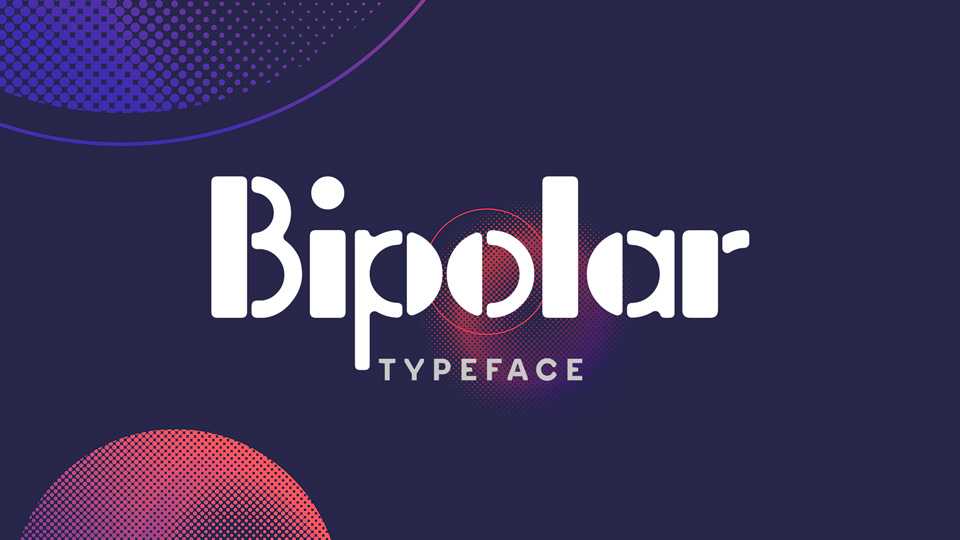
Download Bipolar is a stencil geometric typeface with a contrasting character style. Bipolar font perfectly fits for posters, headlines, prints and other creative projects.
Designer: Hugo Erhard